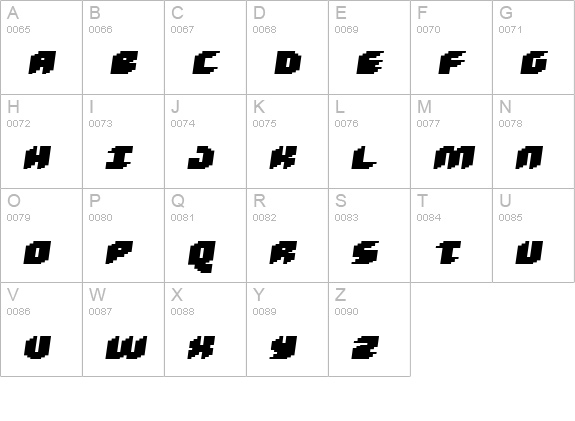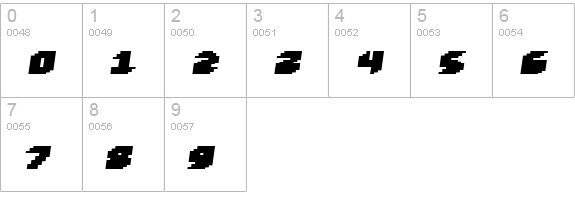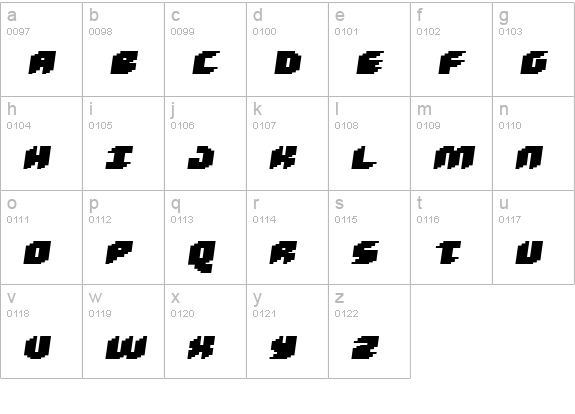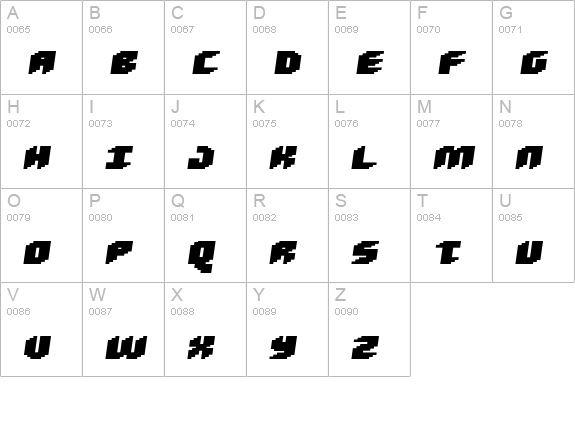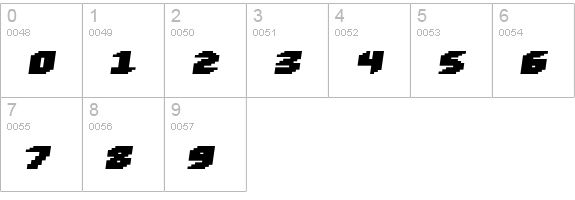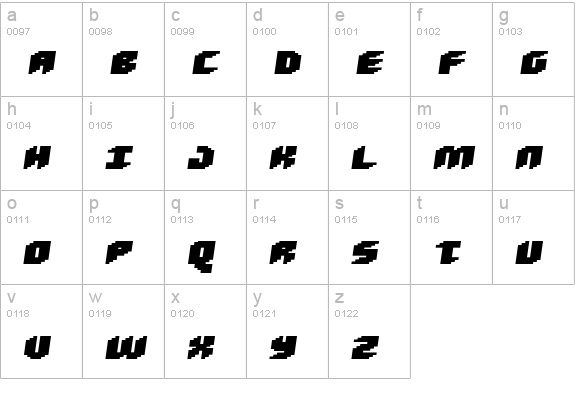
Loud noise Black Skew Font Details
Loud noise Black Skew is a maximum-weight, dramatic variant in the Loud typeface family \xE2\x80\x94 well suited to maximum-impact headlines, posters, and packaging.
Introducing Loud Noise Black Skew font - a bold and unique typeface that is sure to make your designs stand out from the crowd. This font features a striking, skewed design that adds a touch of edginess to any project. With its loud and commanding presence, Loud Noise Black Skew font is perfect for headlines, posters, and branding materials that require a strong visual impact. Best of all, Loud Noise Black Skew font is available for free download at FontsMarket.com! Simply head over to the website and grab this eye-catching font to elevate your design projects to the next level. Don't miss out on this fantastic opportunity to add a touch of boldness and creativity to your work with Loud Noise Black Skew font - download it now and unleash your creativity!